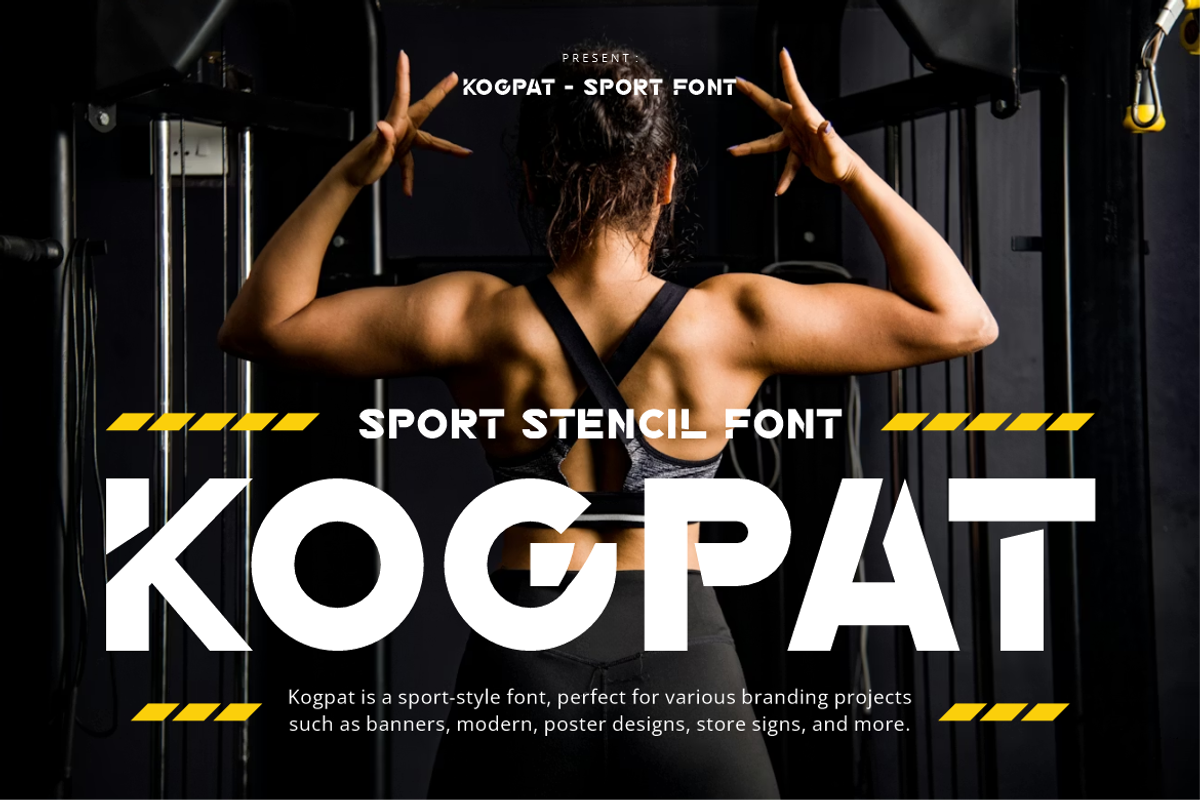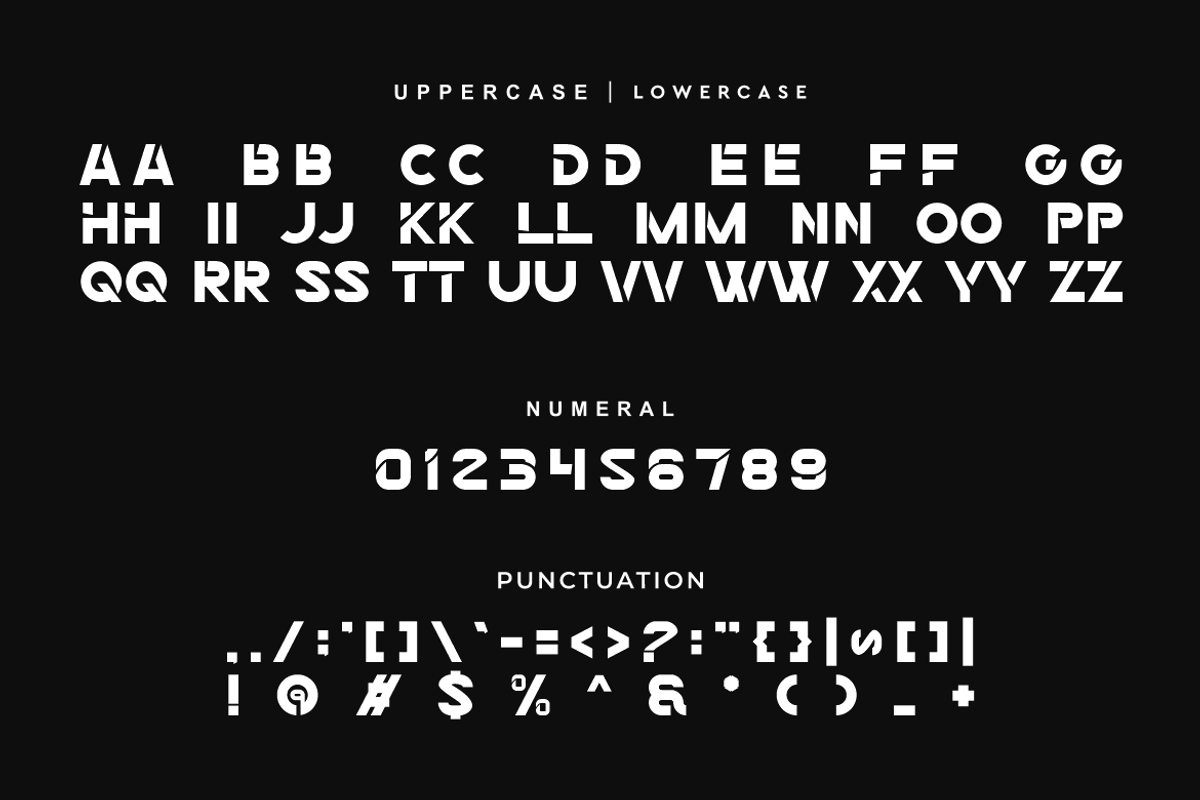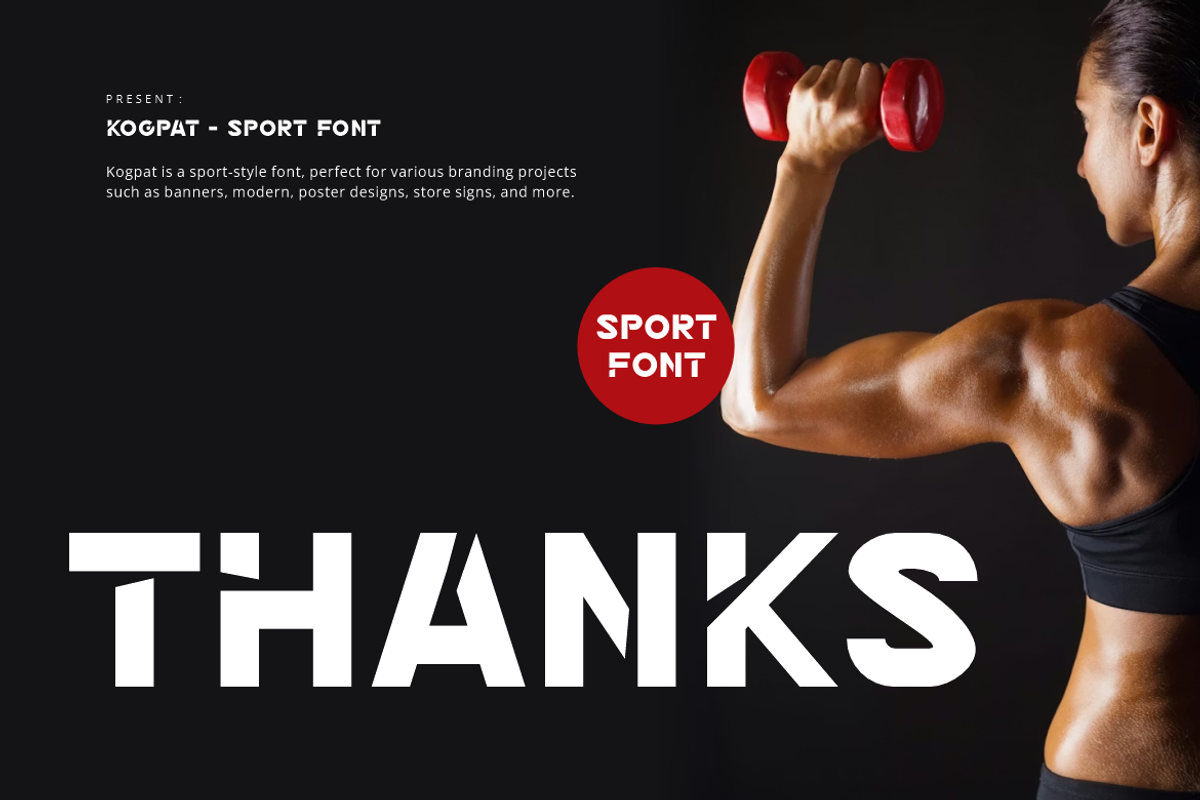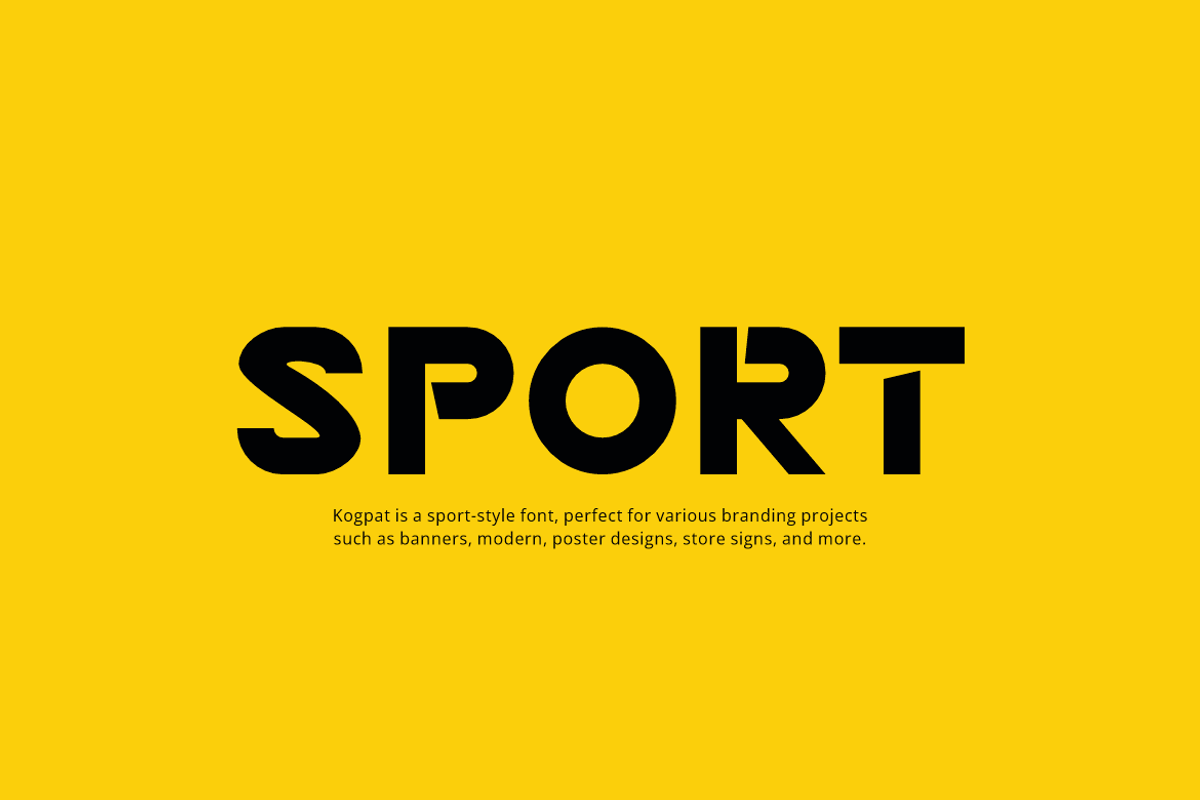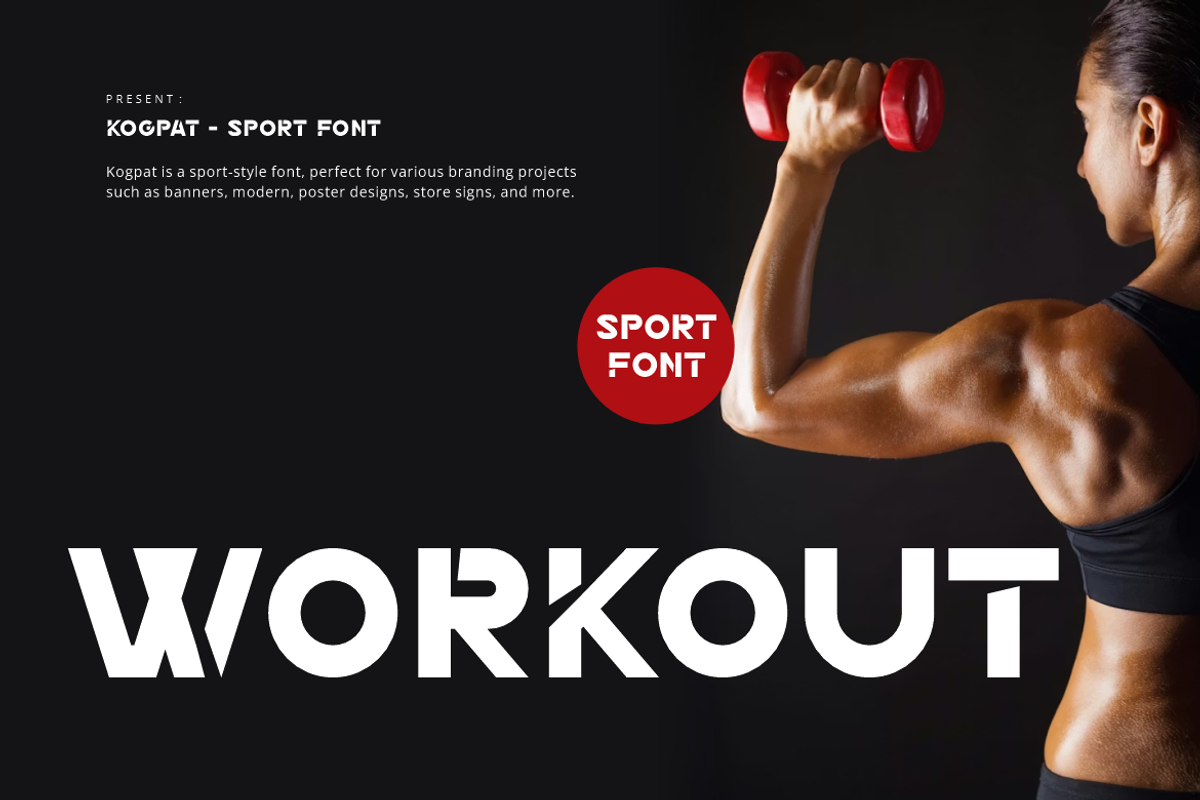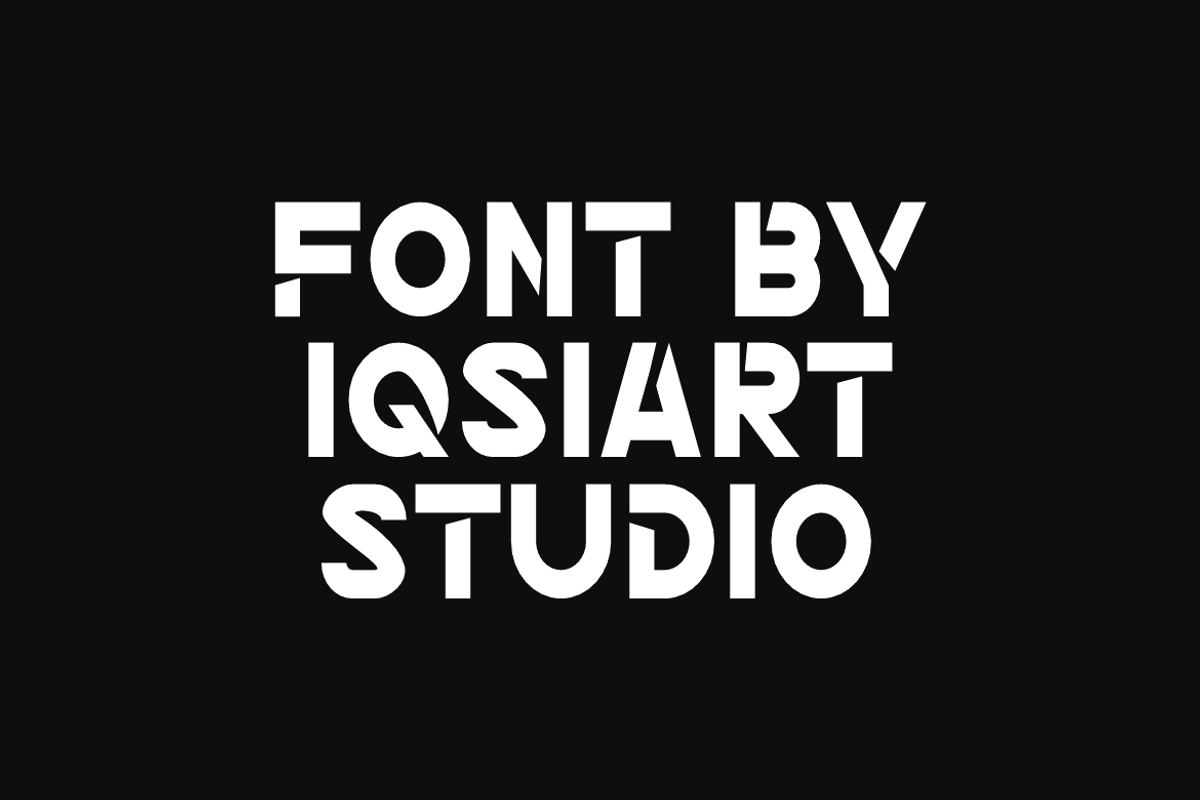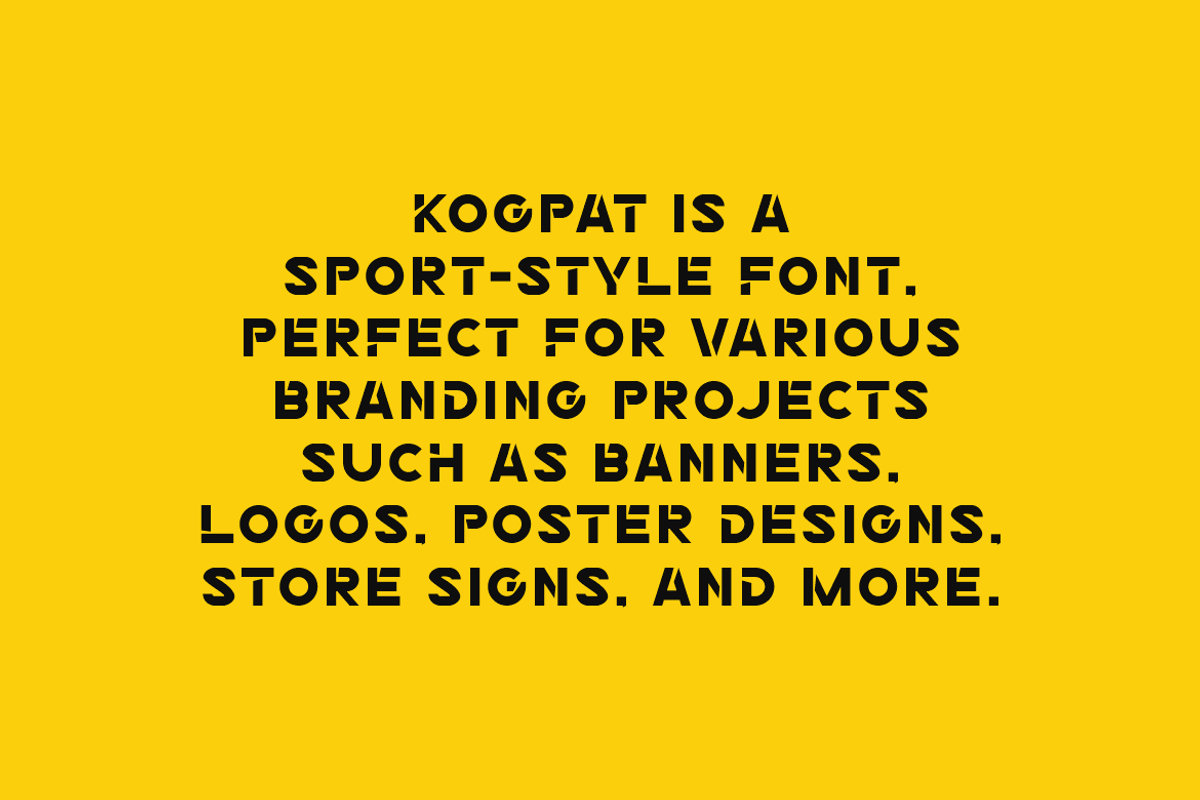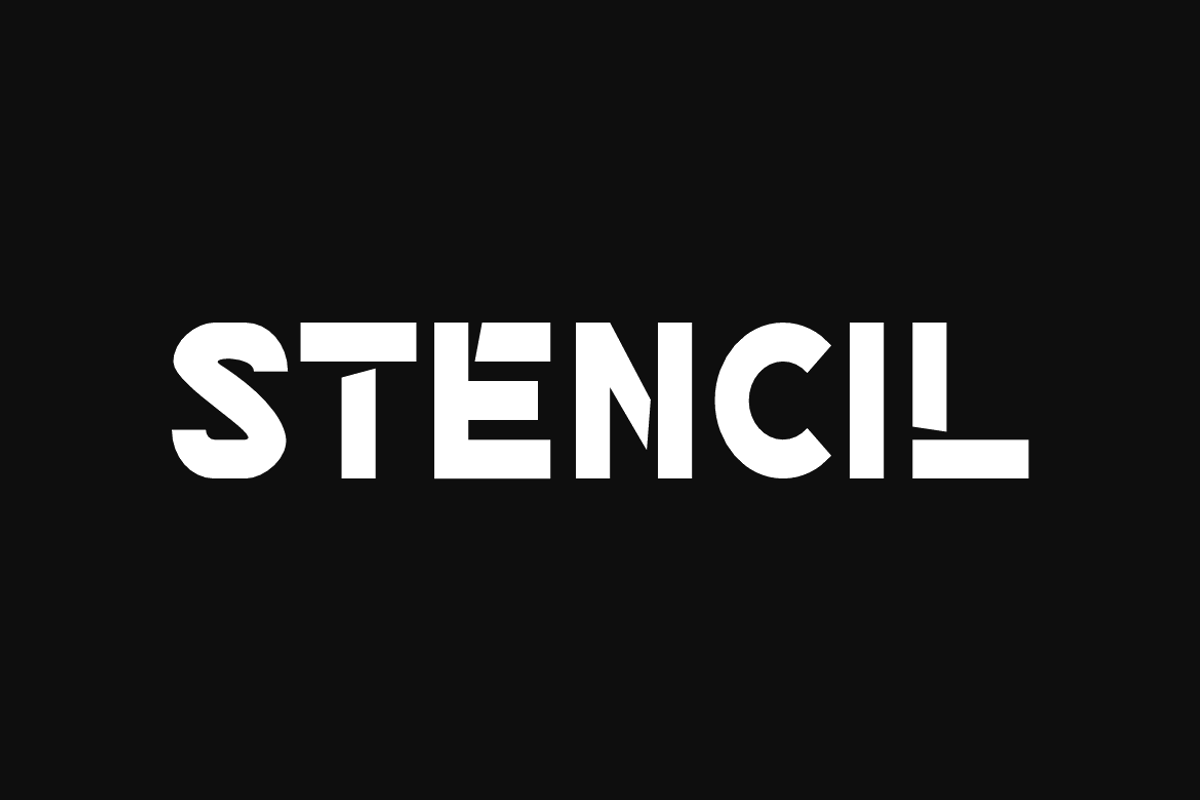
Kogpat - Sport Stencil Font
Kogpat Font is a bold and authentic display typeface that suits a variety of design needs. We offer a wide range of themes and font styles — visit our profile to explore more and find the perfect style for your project.